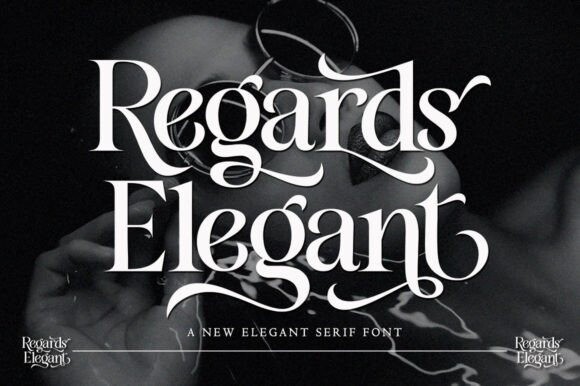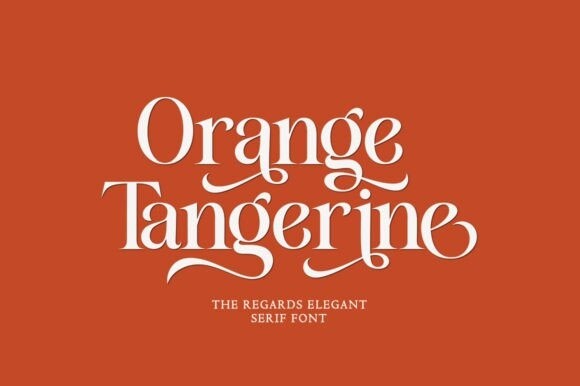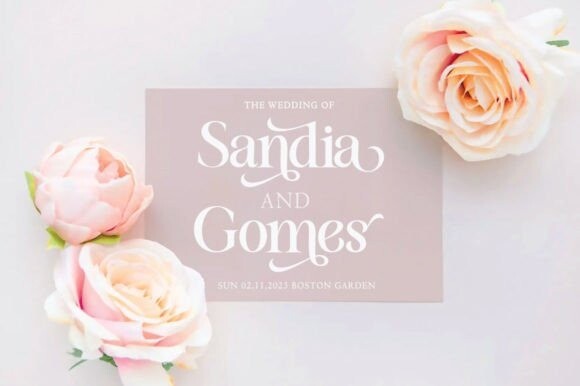
Regards Elegant Font
Regards Elegant Font a versatile, high-contrast serif font family. Qualux comes from the words Quality and Luxury. This font has a vintage characteristic with a luxurious style in a light form, but also has a friendly and playful style in a bold type. Each glyph has a soft, rounded tip. This font is suitable for a variety of projects such as logos, branding, magazines, signage, fashion, and many more.